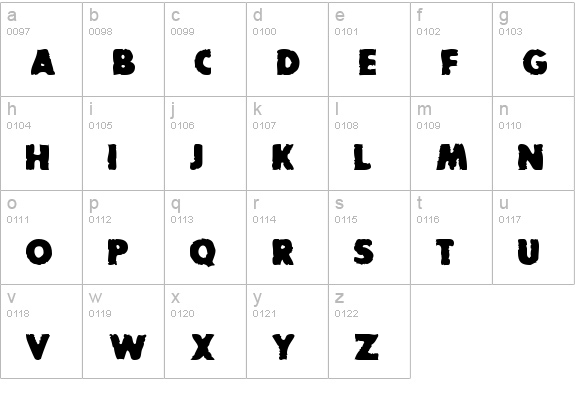
BadDogSCapsSSK Bold Font Details
BadDogSCapsSSK Bold is a strong, high-contrast variant in the BadDogSCapsSSK typeface family \xE2\x80\x94 well suited to headlines, attention-grabbing titles, and strong calls-to-action.
BadDogSCapsSSK Bold font is a bold and attention-grabbing typeface that exudes a sense of strength and power. Its sharp edges and unique styling make it perfect for adding a touch of boldness to your designs. This font is ideal for headlines, posters, logos, and any other project that requires a strong and impactful look. The best part is that BadDogSCapsSSK Bold font is available for free download at FontsMarket.com. This means you can easily access this striking font and incorporate it into your projects without any cost. Don't miss out on this opportunity to enhance your designs with this eye-catching and versatile typeface!